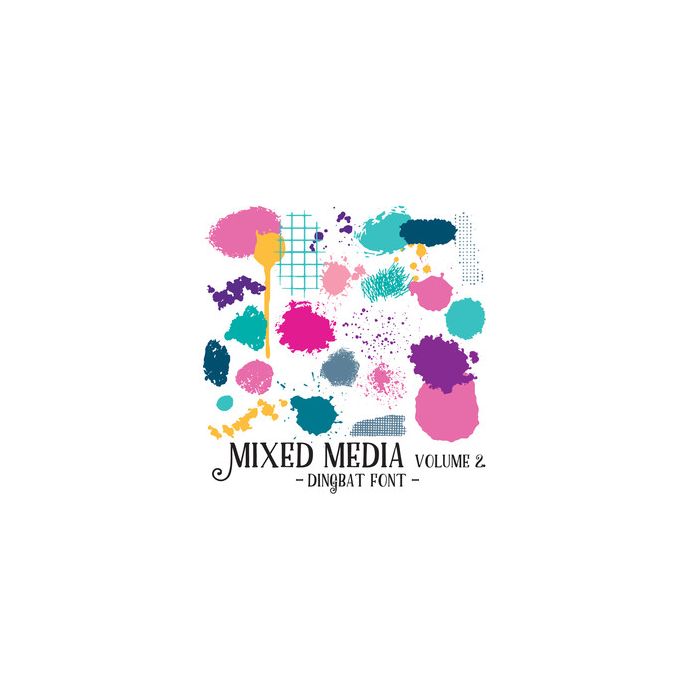
mixed media vol. 2 dingbat font
Mixed Media Hand Drawn Paint, Texture and Effect Font, with 26 effects. All dingbats are allocated to upper and lowercase letters and can be accessed via the glyphs panel or character map.